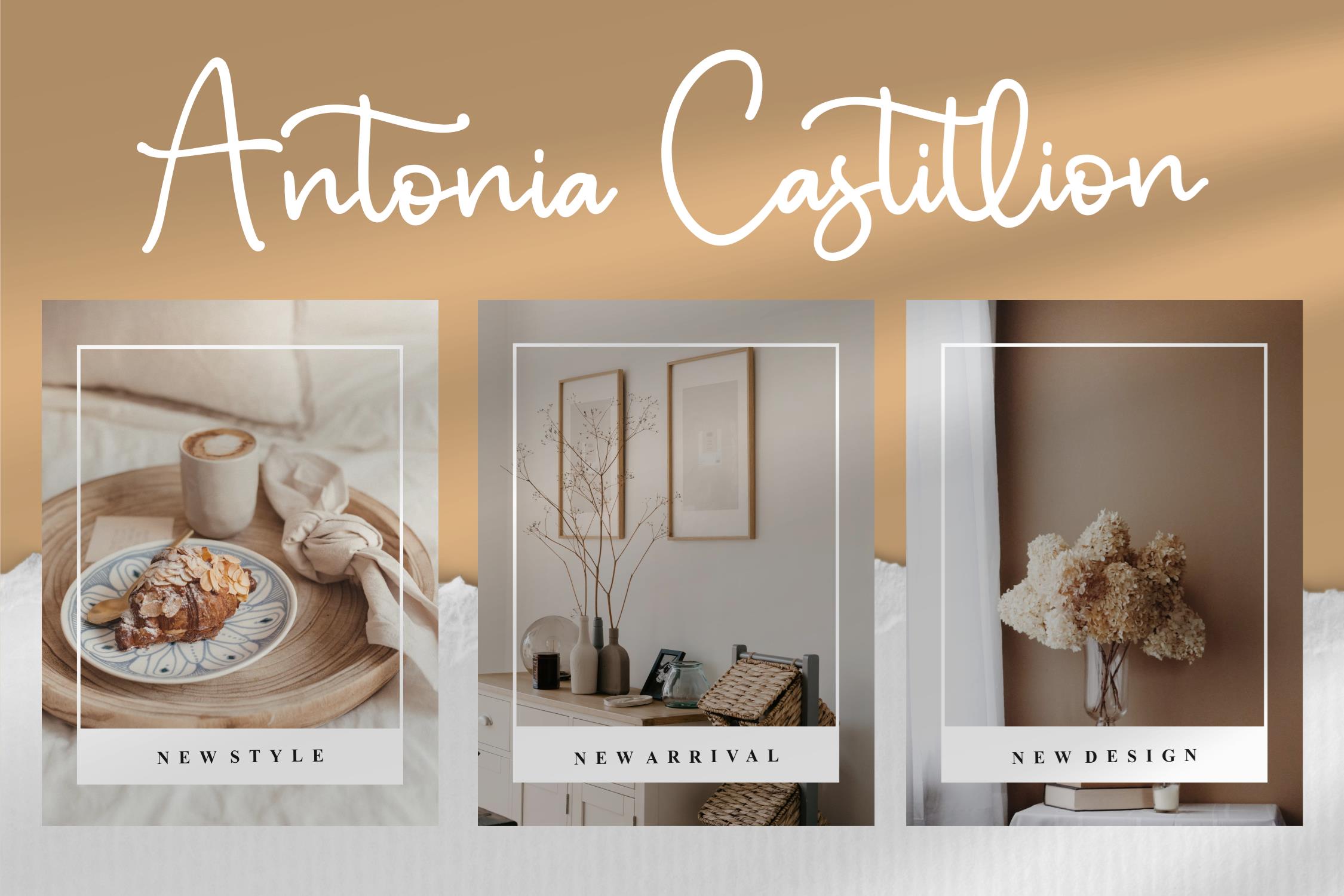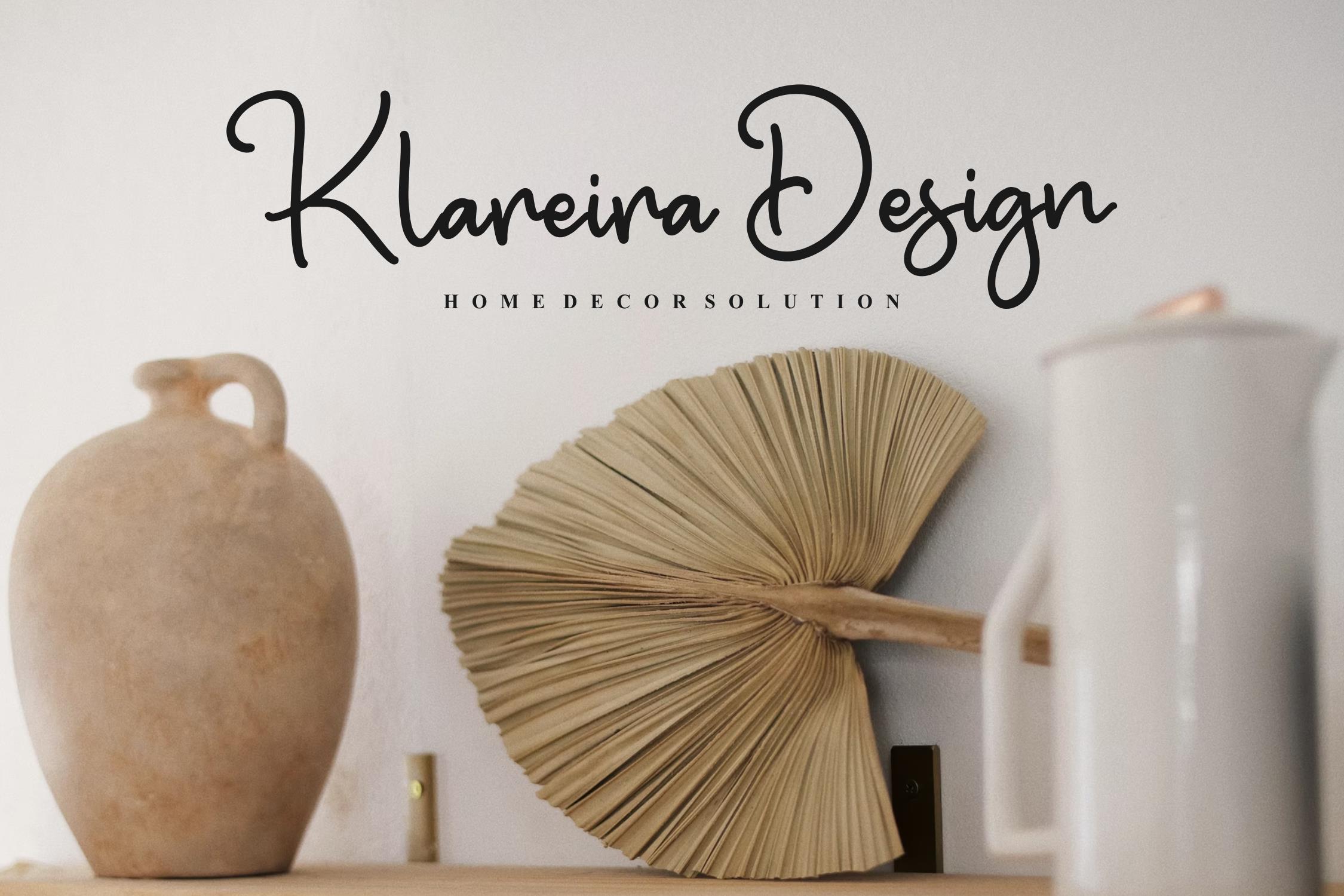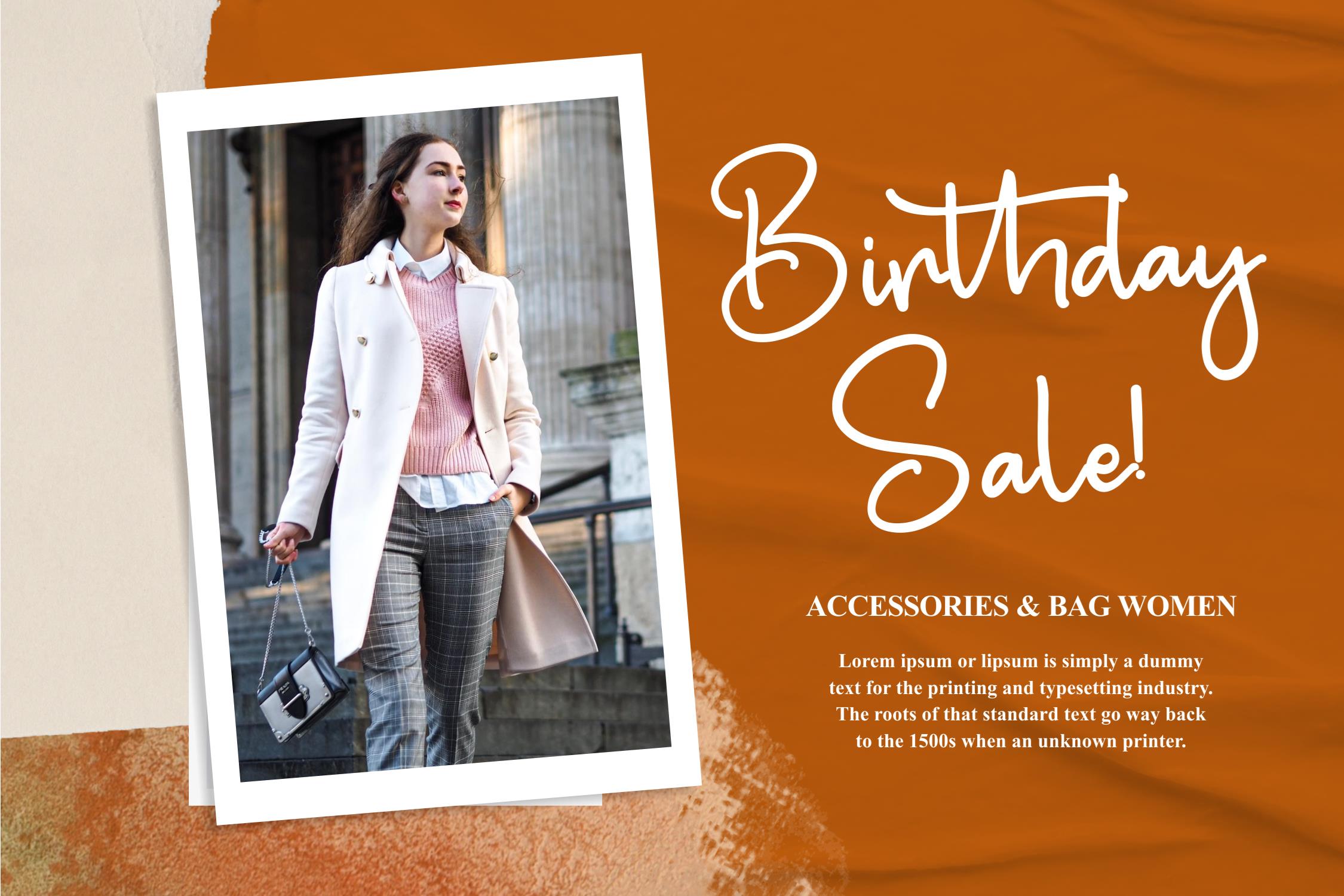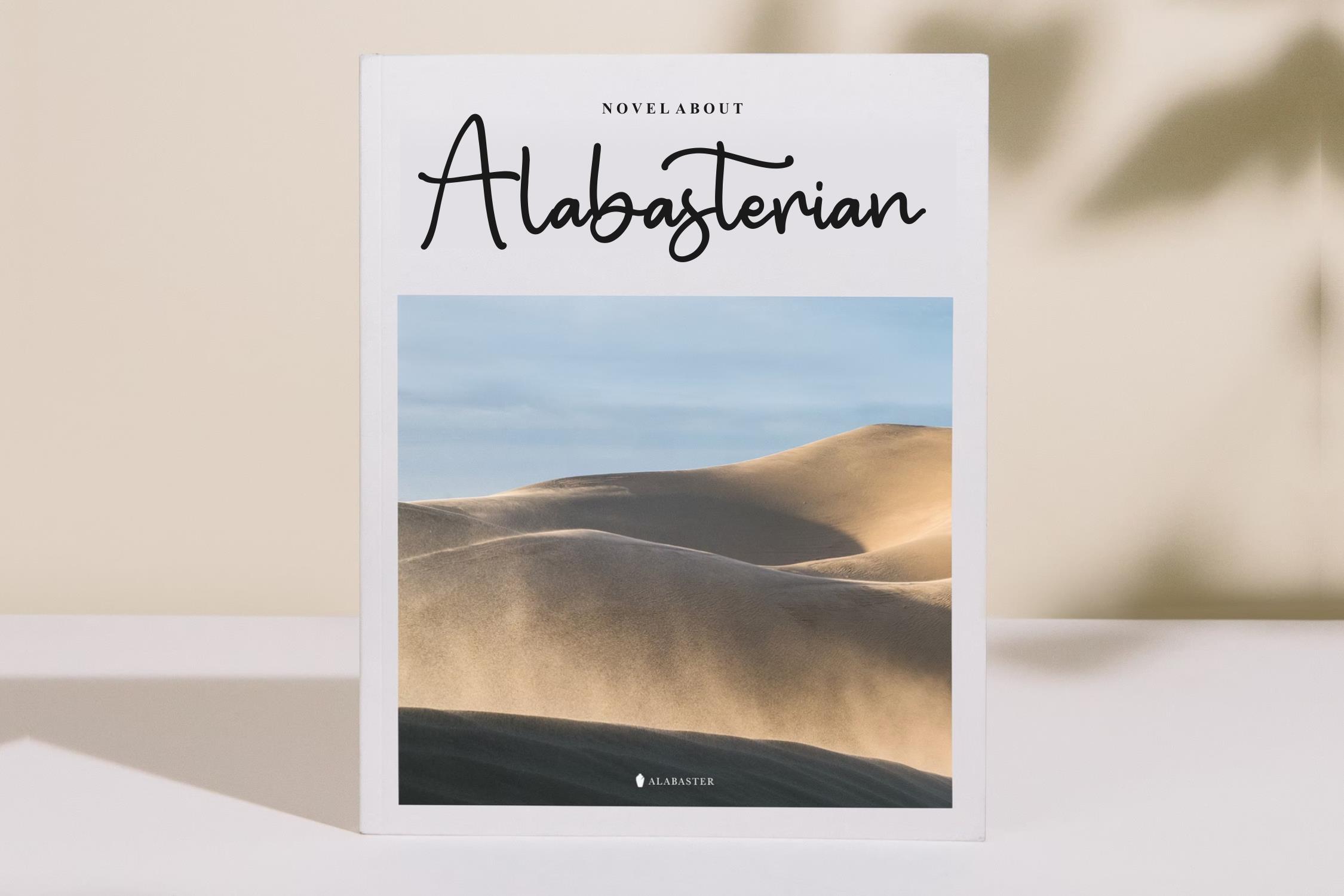
Benattia Signhale Font – Beauty Monoline Font , from Letterfabric Studio, is a suitable for any projects such as: logos, branding projects, homeware designs, product packaging, mugs, quotes, posters, shopping bags, t-shirts, book covers, name card, invitation cards, greeting cards, label, photography, watermark, special events, and all your other lovely projects that need a beautiful script taste.